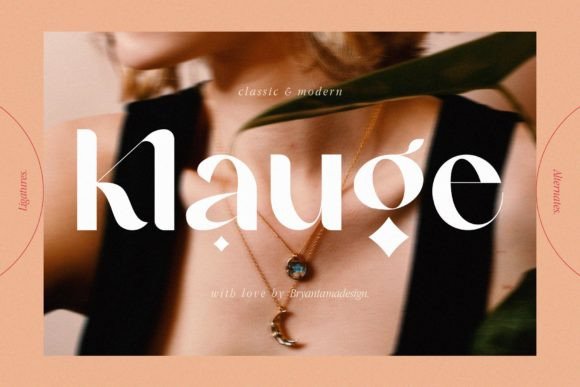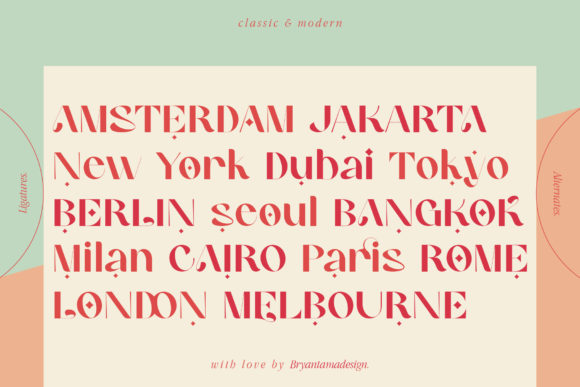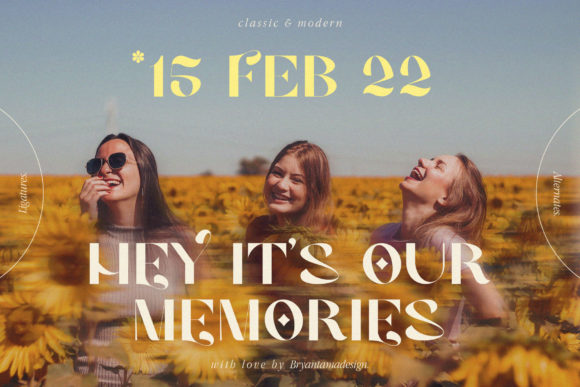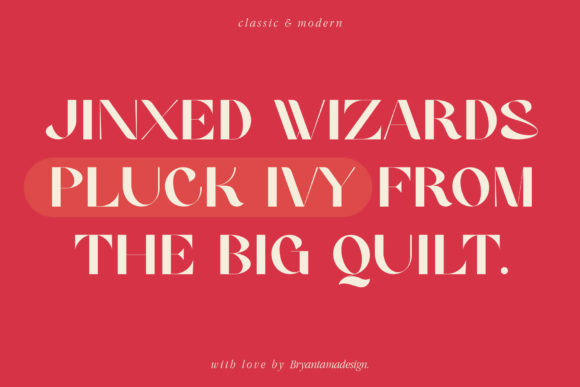
Klauge Font Font
About the Klauge Font Font
Discover the charm of Klauge Font Font. This font is a perfect blend of modern aesthetics and classic appeal. Klauge is a stylish Sans Typeface.
Inspired by a classy theme with magical feels that makes the font has a unique personality, you can use it for branding, social media, posters, packaging, & more.
Klauge’s elegant yet slightly playful personality makes it ideal for headlines, logos, and short-form text in branding projects. It works particularly well for packaging design, especially for premium or luxury products, and would be effective on posters and social media graphics. However, its decorative nature makes it less suitable for body copy or UI elements where legibility over extended text is crucial.
Pairing Klauge effectively depends on the desired emphasis. For a sophisticated feel, consider pairing it with a classic serif like Garamond or a clean geometric sans-serif like Futura. To highlight its playful side, a script font like Allura or a more rounded sans-serif like Lato could create a balanced and engaging contrast.
Ultimately, Klauge projects a modern yet timeless feel, best suited for brands aiming for a sophisticated and stylish image with a touch of whimsical charm. Avoid using it in contexts requiring high levels of readability across large amounts of text.
Klauge Font Font Usage Examples
Klauge Font Font Example